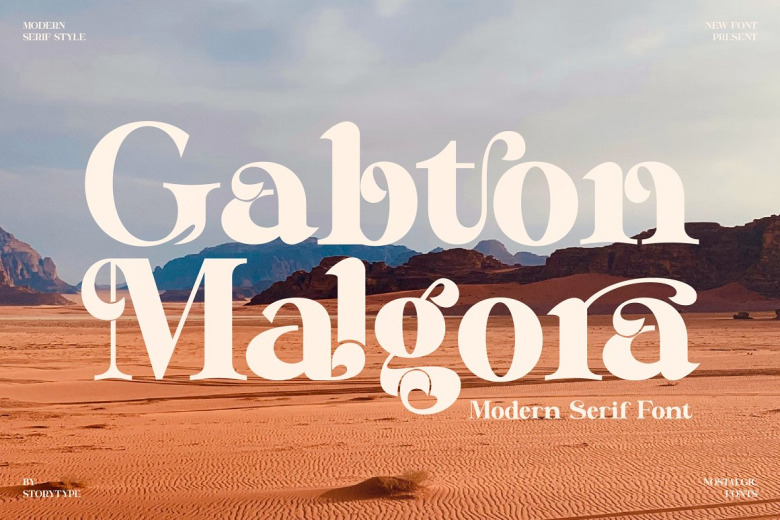
Gabton Malgora Font
Proudly present Gabton Malgora Serif Font, created by Storytype, A serif modern and classic typeface that has own unique style & modern look. This typeface is perfect for an elegant & luxury logo, book or movie title design, fashion brand, magazine, clothes, lettering, quotes, and so much more.
Gabton Malgora Serif Font